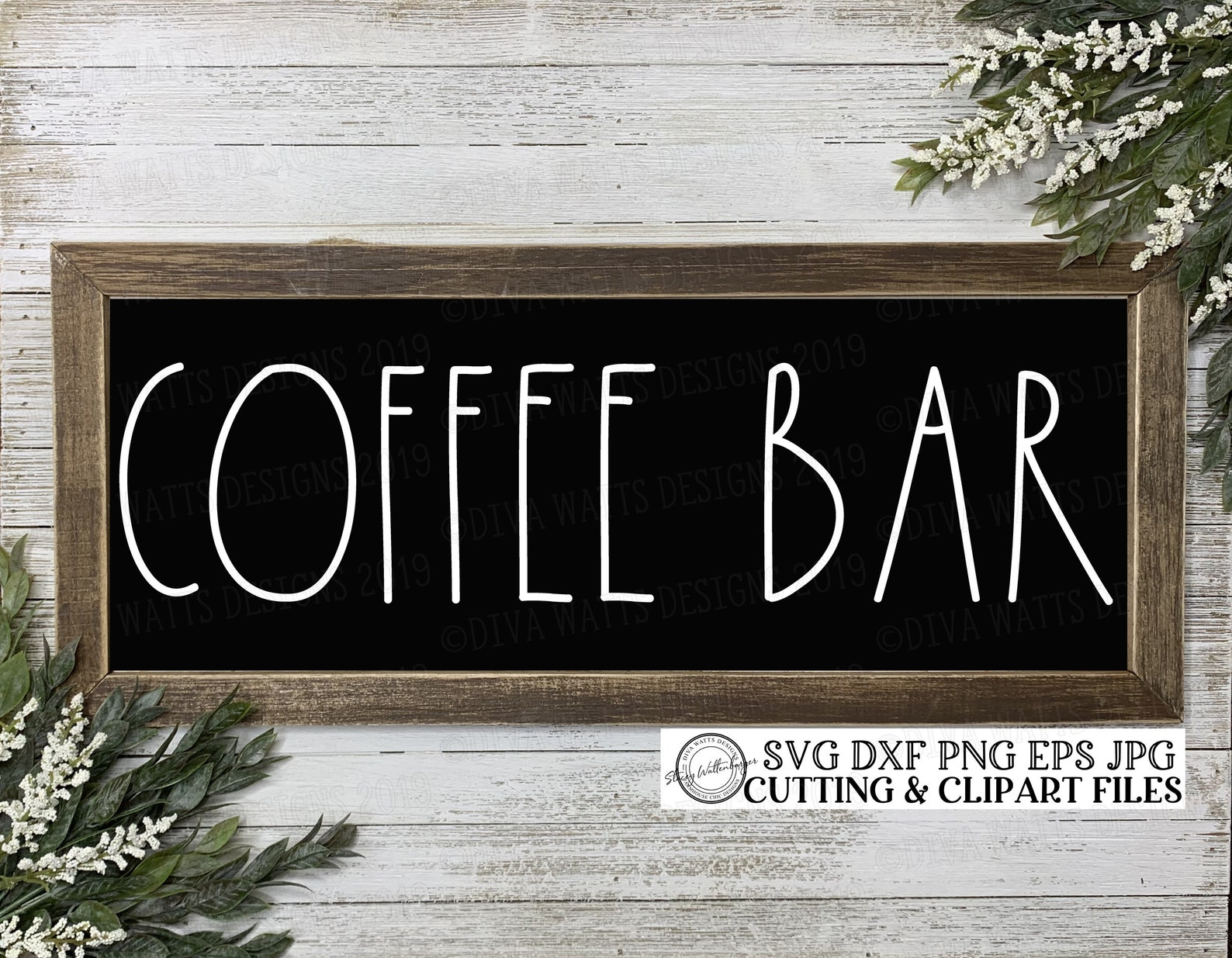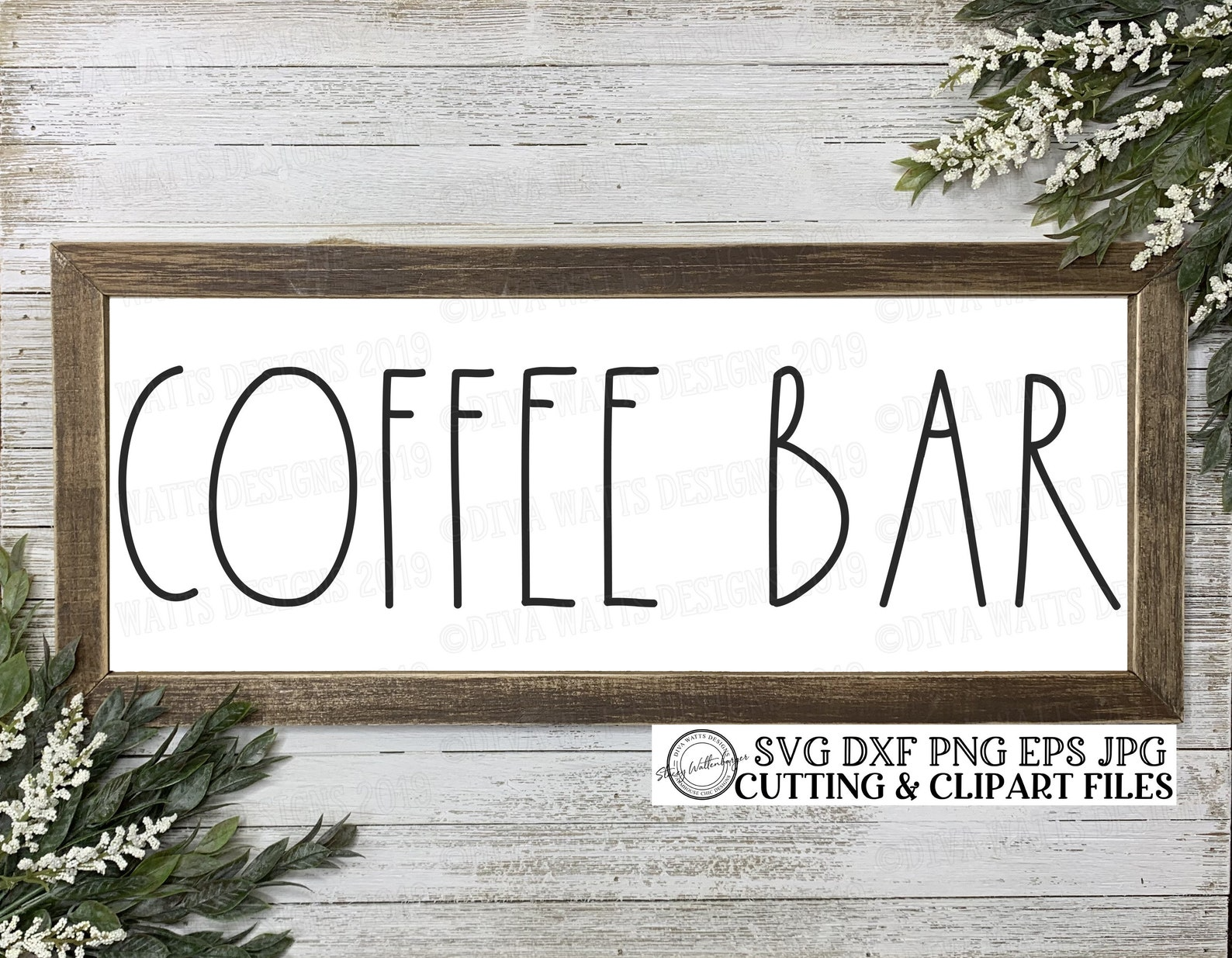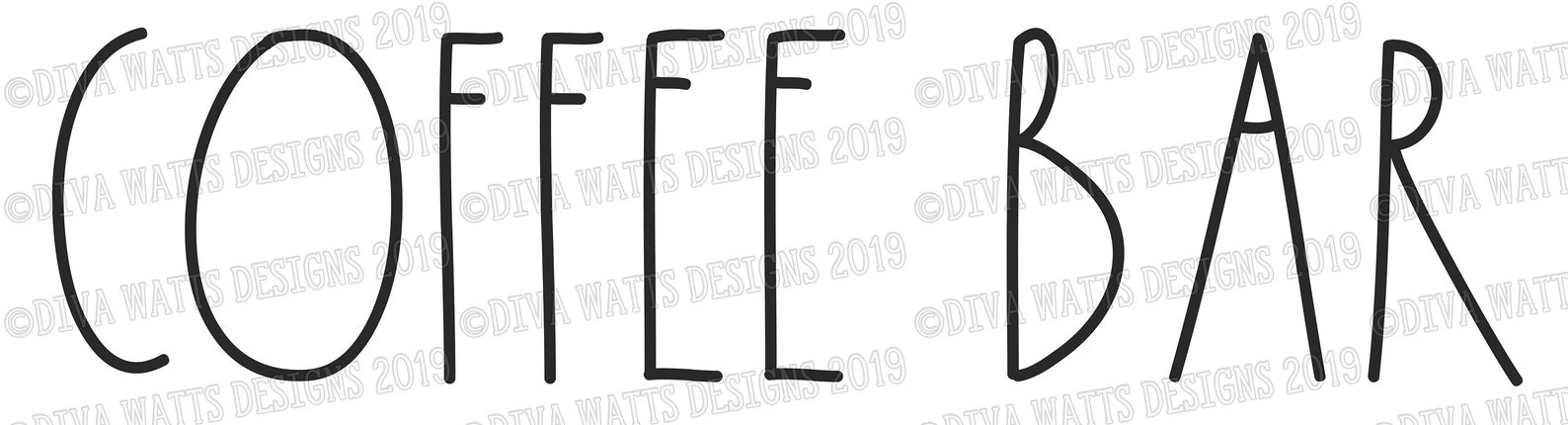
SVG Coffee Bar | Cutting File | Farmhouse | Skinny Font | Brewing Station | Vinyl Stencil htv | Sign | Kitchen Wall Decor
Coffee Bar Cutting File
Perfect for Kitchen signs!